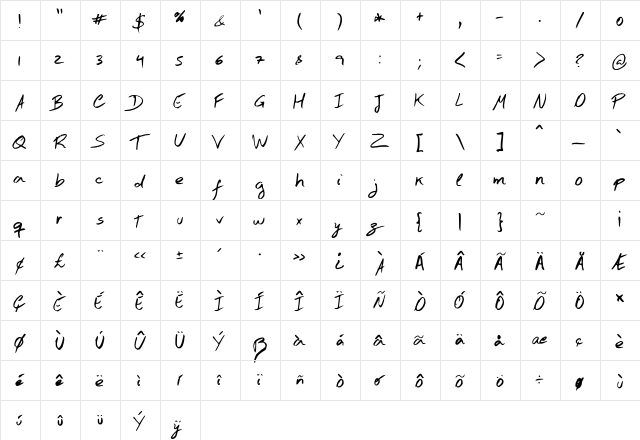
Hand Test Regular Font Preview
Hand Test Regular
Design Context for Hand Test Typeface
Hand Test brings a calligraphic fluidity to the page — its connecting strokes and expressive curves give it an unmistakably human quality.
Font Pairing: Combine Hand Test with a simple geometric sans for maximum contrast — the tension between flowing curves and clean structure is a classic typographic pairing.
Pro Tip: Use Hand Test for short runs of text — names, titles, or taglines. Extended body copy in script faces tires the eye quickly.